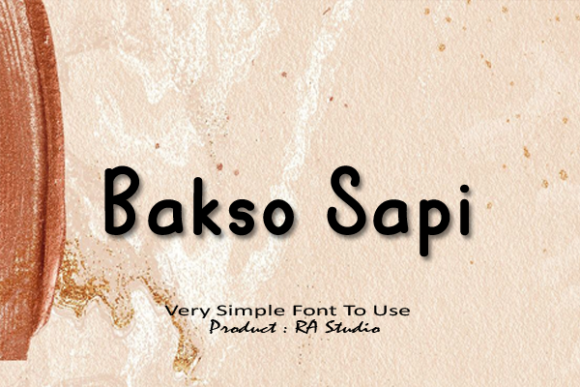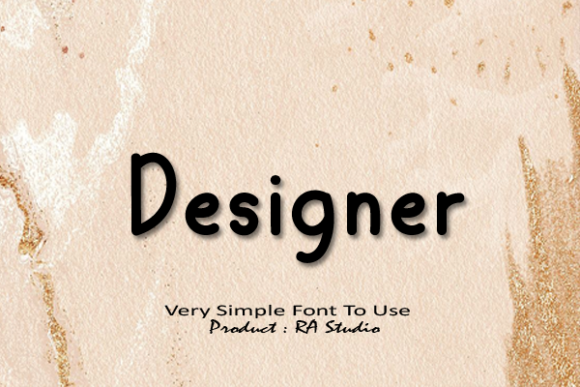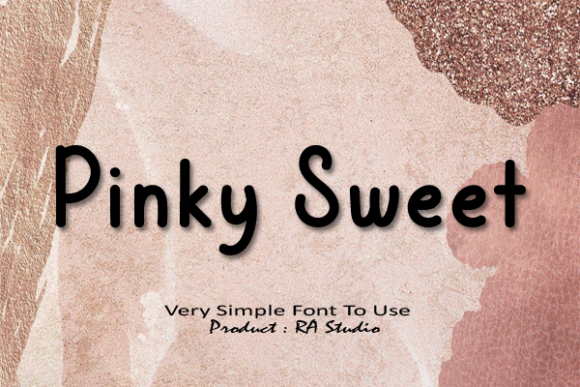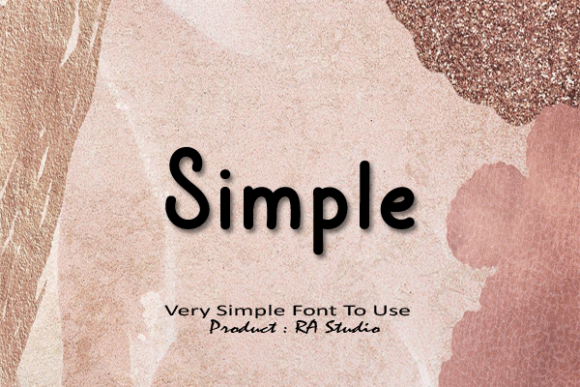
Random Type Font
Random Type is a clean and simple handwritten font.
Sweet and joyful, this font will be ideal for writing wedding invitations, cards or any other design that may need a neat, adaptable touch!